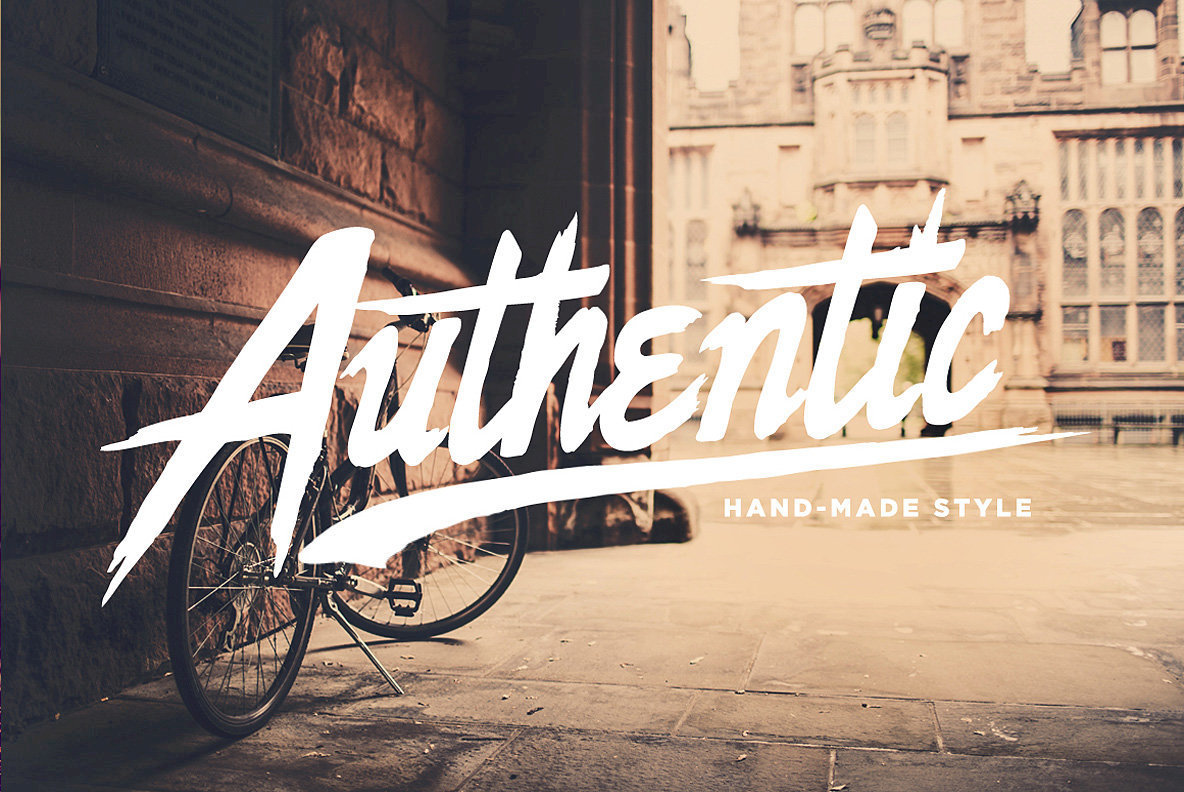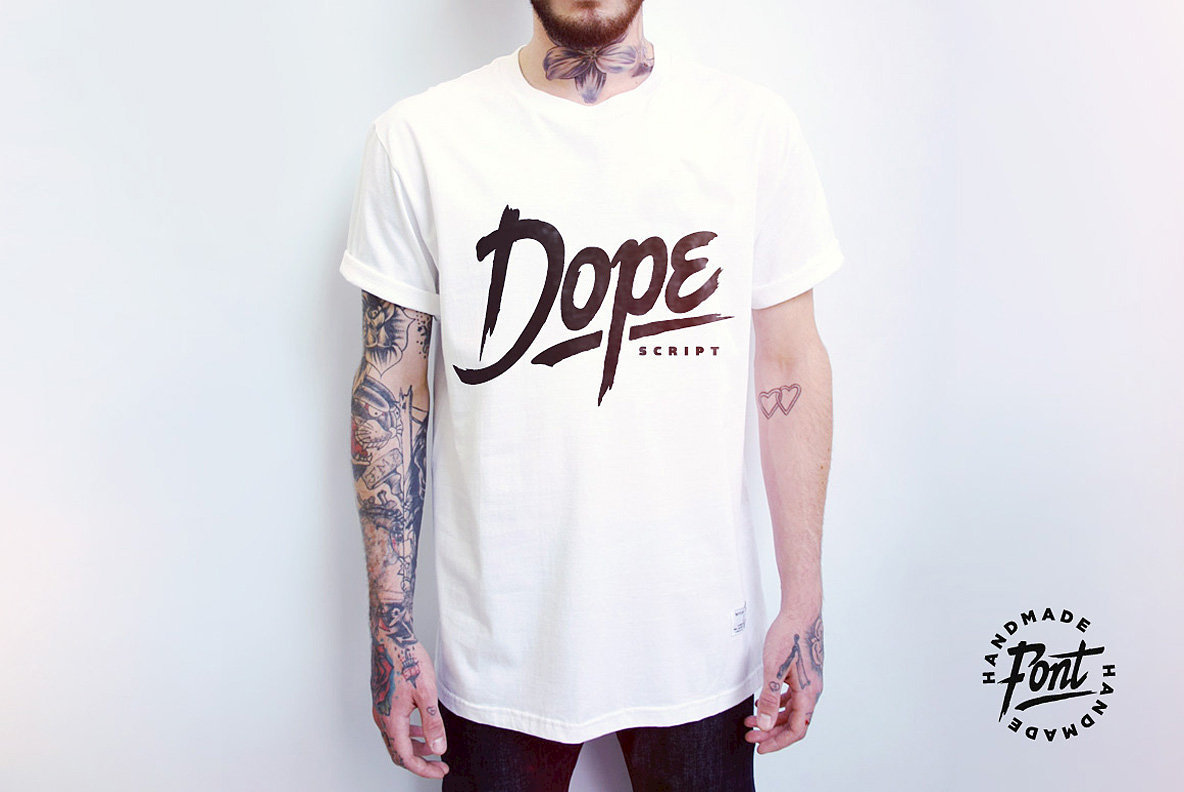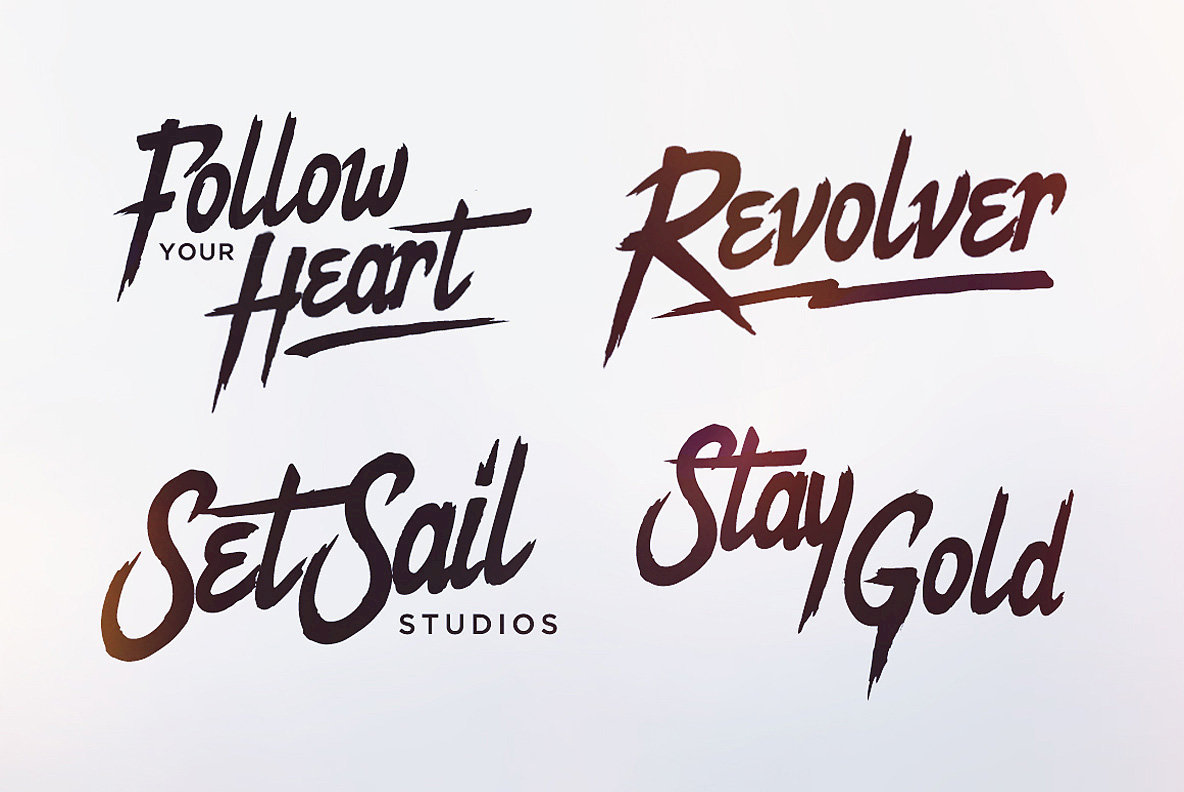
Dope Script Font
Dope Script
Dope Script is a rough around the edges, hand-made paint brush font with bags of personality.
It comes with a large range of characters including capitals, lower-case, numerals, punctuation, currency and accents. Also try the characters { } [ ] for some bonus swashes to pop-out your text!